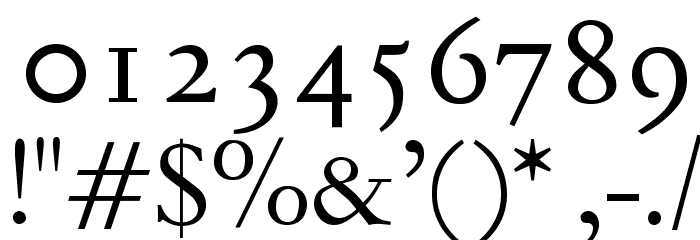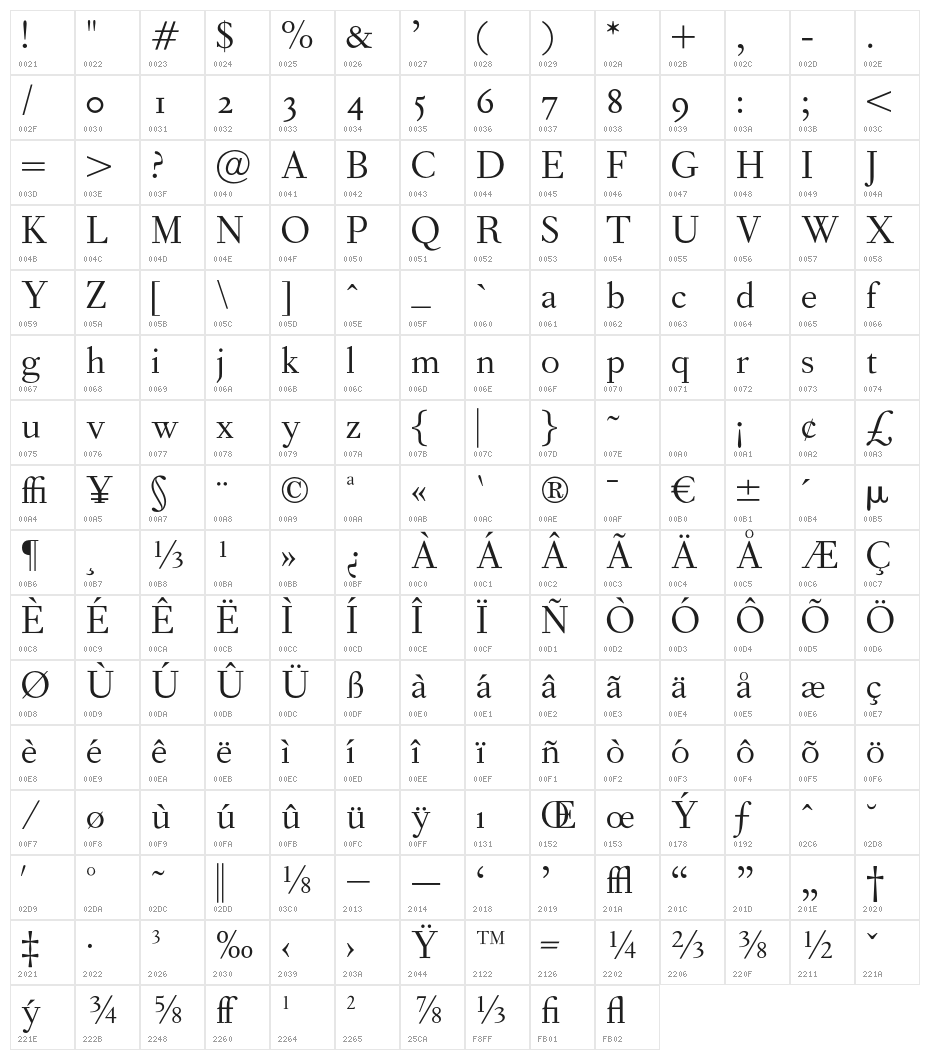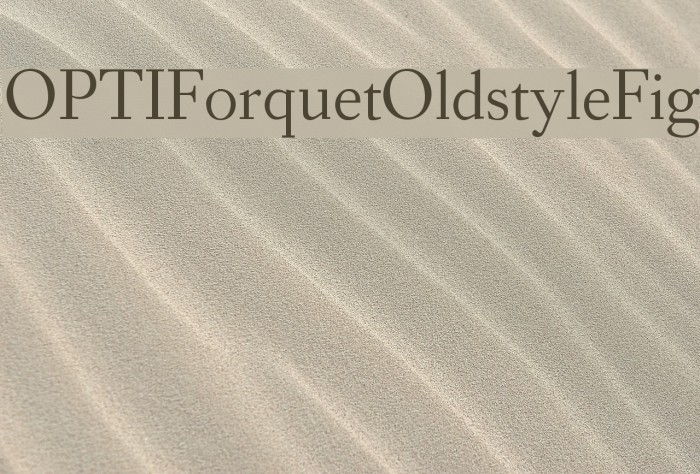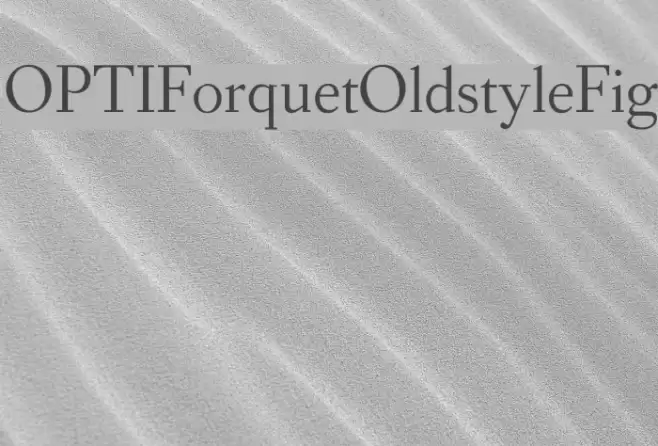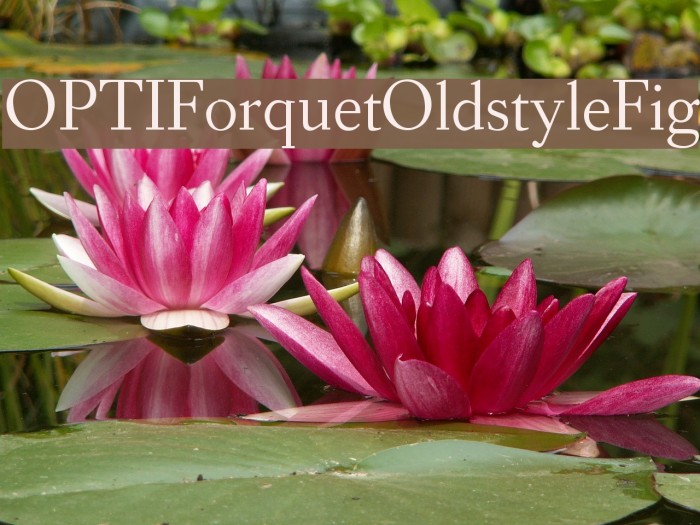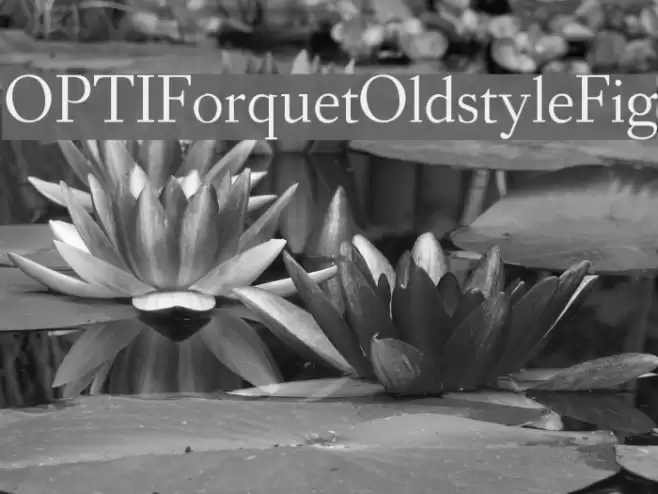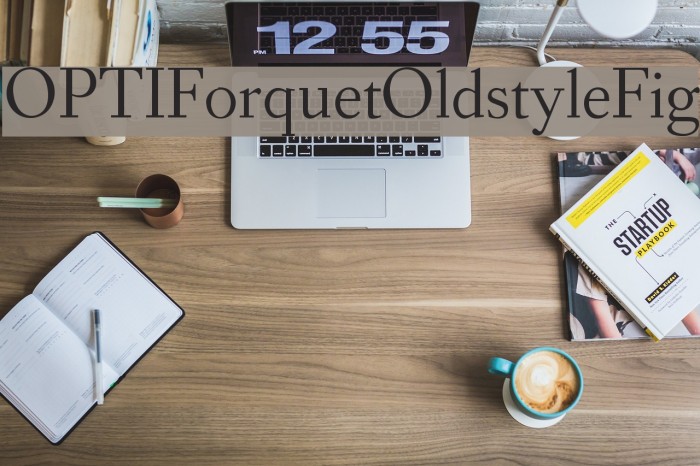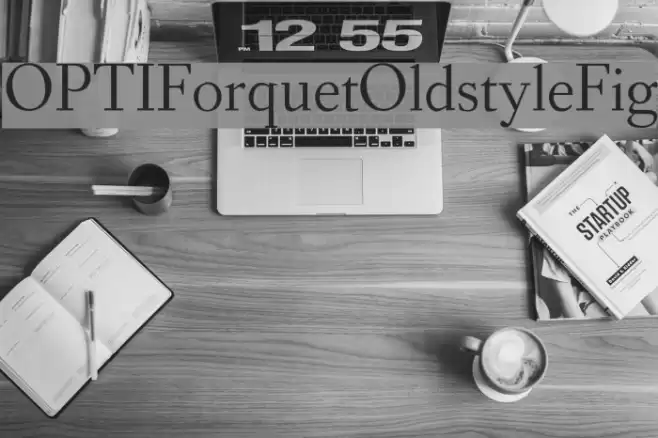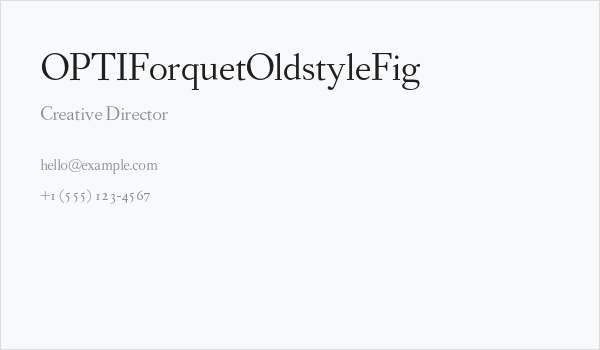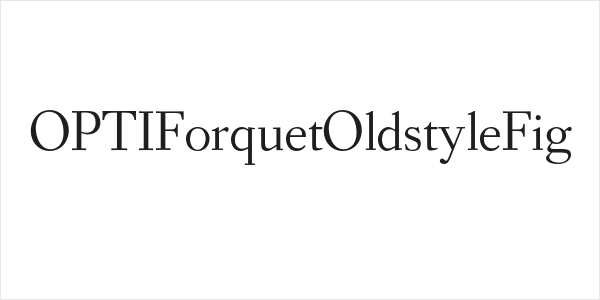
OPTIForquetOldstyleFig Font
OPTIForquetOldstyleFig Description
This typeface exudes a classic elegance with its refined serifs and balanced proportions. The uppercase letters are stately, with a slight contrast in stroke width that adds sophistication. The lowercase letters maintain a harmonious flow, featuring gentle curves and a consistent baseline. Numerals are distinct and clear, making them easily readable. The special characters are thoughtfully designed, complementing the overall aesthetic. This font is versatile, suitable for both formal and creative applications, offering a timeless appeal that can enhance any design project.
| Proposed Projects | Ideal for book covers, editorial design, branding, and formal invitations. |